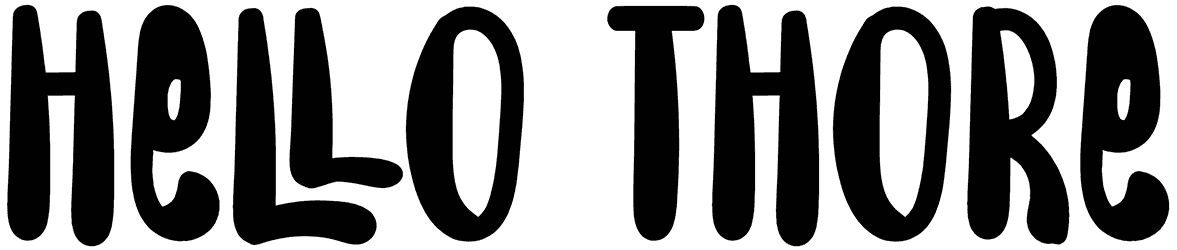
Hello Thore Font
When you choose Hello Thore for your text, it’s not up to you anymore whether your letters are written in lowercase or uppercase. There’s only one set of characters, and it’s a combination of both.
But don’t you worry. All of them come with the same height, making this rounded font perfect for playful titles and headlines. Consider it an ice cream font you can use as your logo or print on your food packaging to convey a sweet touch.